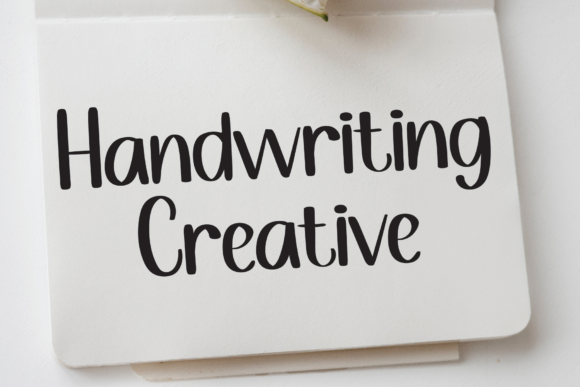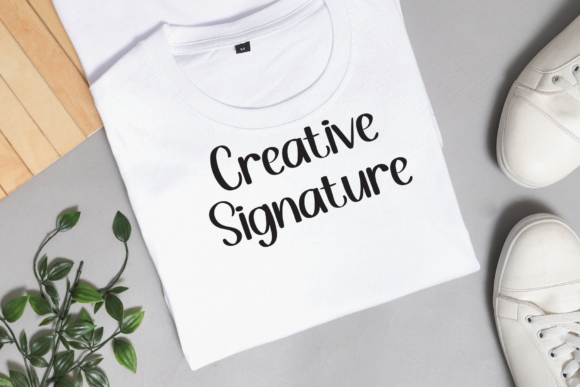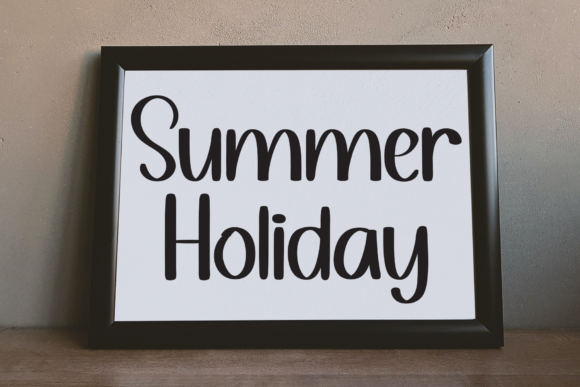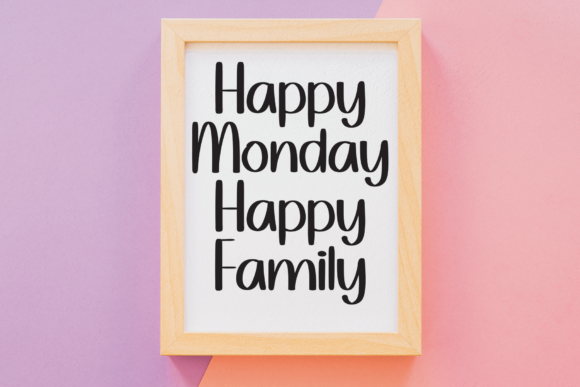
Brillian Font
About Brillian Font
Brillian is a charming and approachable handwritten font that brings a sense of casual elegance to your design projects. With its clean and well-crafted letterforms, this font offers a versatile option for various branding, print, and digital applications.
Perfect for logos and visual identity, Brillian adds a touch of warmth and friendliness to your brand’s representation. Its relaxed yet refined appearance can help create a welcoming and relatable image, making it a great choice for businesses that want to connect with their audience on a personal level.
The font’s clarity and readability make it an excellent candidate for t-shirt printing and sport designs. Whether you’re creating apparel for sports teams, athletic events, or active lifestyle brands, Brillian’s legible and balanced characters can contribute to a polished and professional look.
Brillian’s adaptable nature allows it to shine in a wide range of contexts. It works well for both print and digital mediums, making it suitable for promotional materials, packaging, posters, social media graphics, and more. Its simplicity and versatility ensure that it can complement various design styles and aesthetics.
Additionally, Brillian’s friendly and unpretentious style makes it a great choice for projects beyond branding and sports. It can add a personal touch to greeting cards, invitations, stationery, blog graphics, and other creative endeavors. Its effortless charm and approachability help create designs that resonate with audiences and leave a positive impression.
In conclusion, Brillian is a versatile and delightful handwritten font that brings a sense of casual elegance and friendliness to your design work. Its clean and well-crafted appearance makes it suitable for branding, t-shirt designs, sport graphics, and a wide array of other applications, allowing you to create standout designs that captivate and engage.